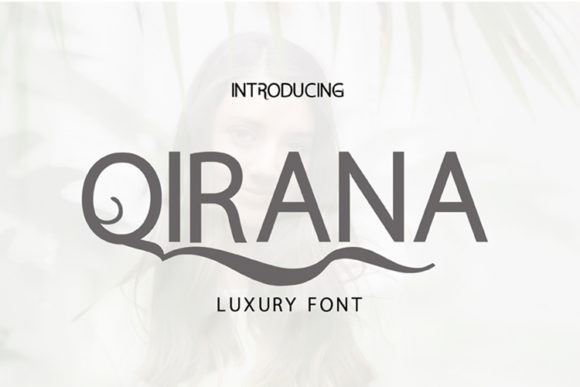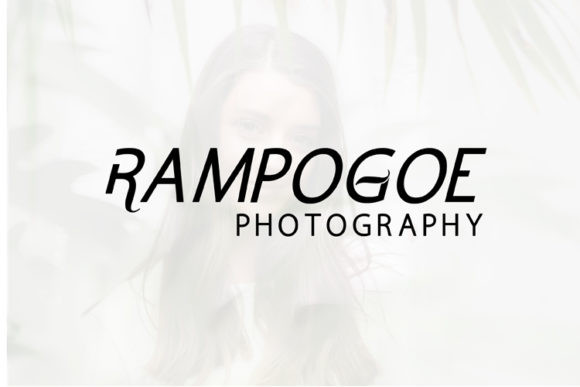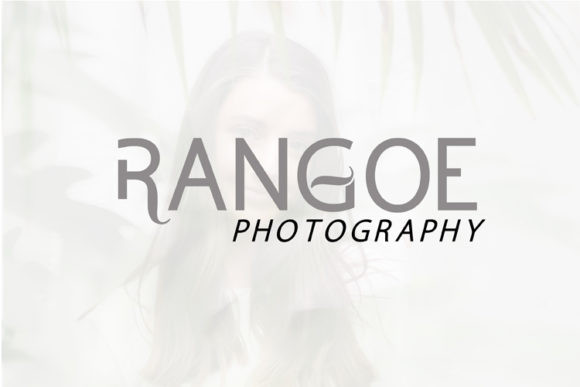
Qirana Font
Qirana is a display font that combines minimalist style with beautiful flourishes. Use it for any design project that requires a personalized appearance!